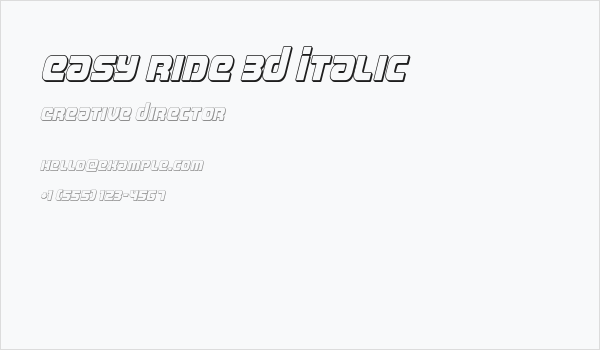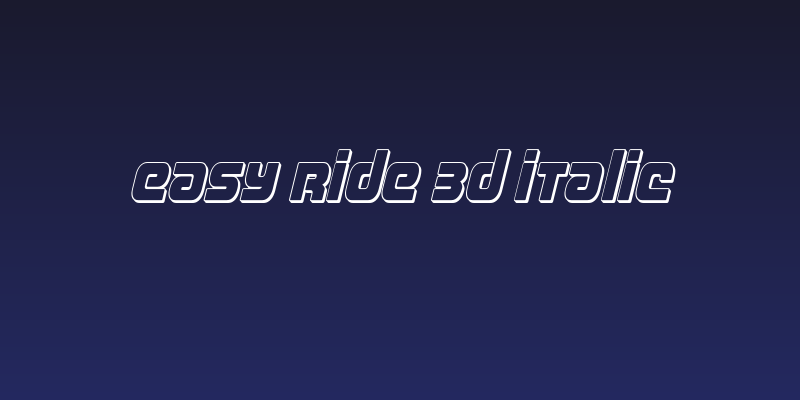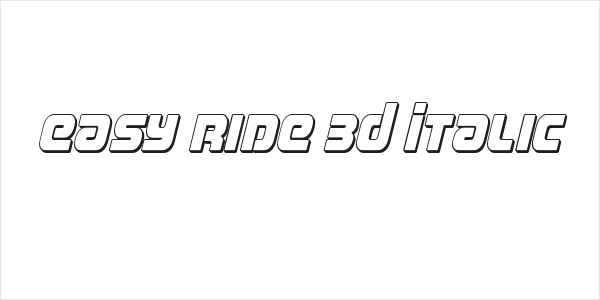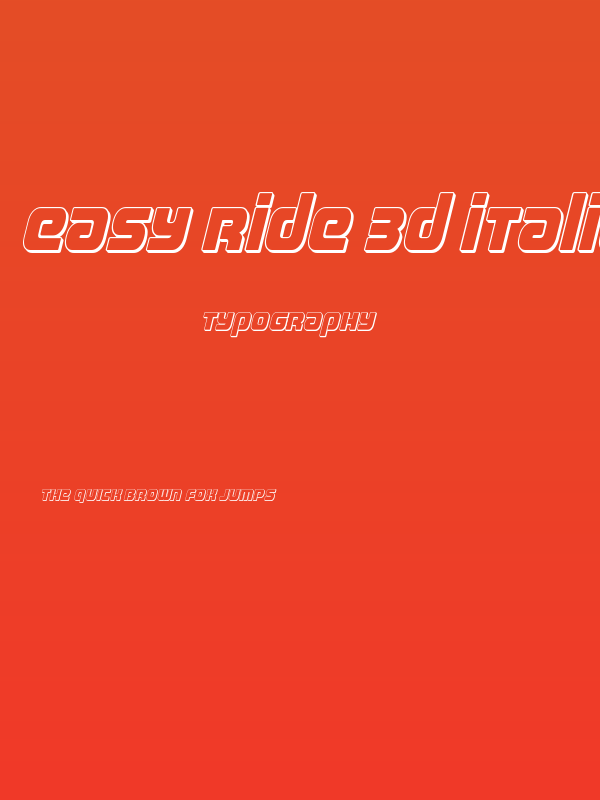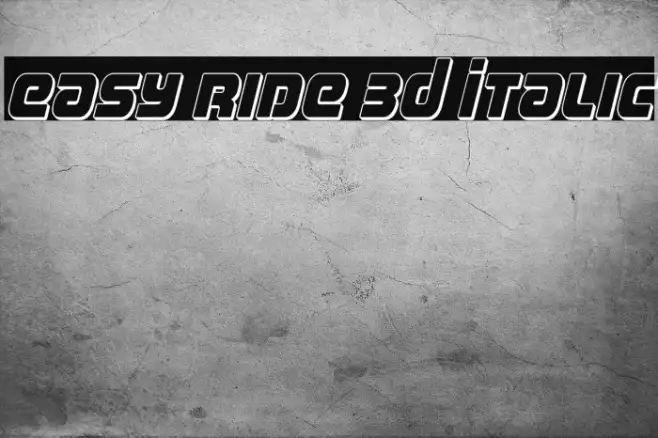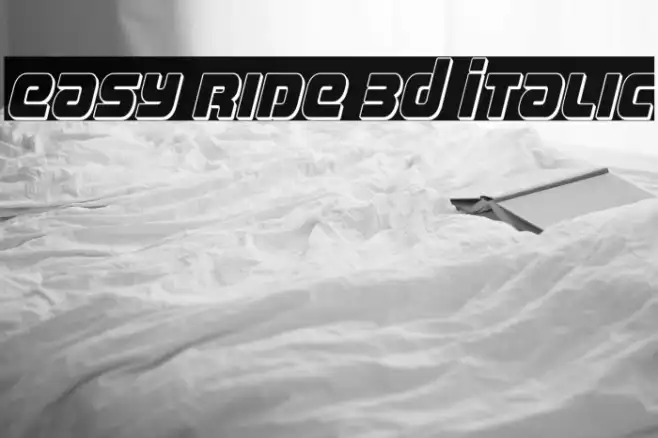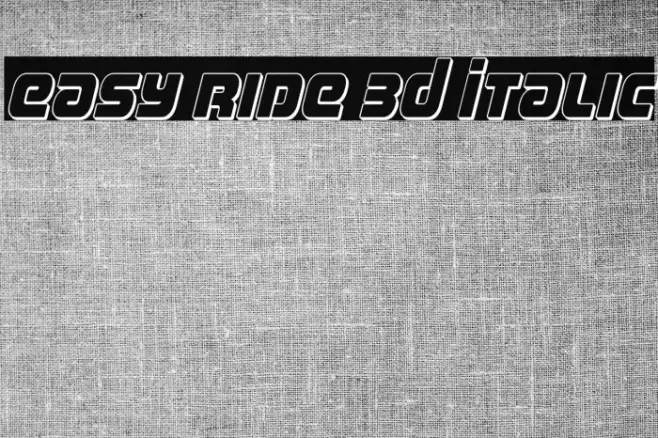
Easy Ride 3D Italic Font
Easy Ride 3D Italic Description
This font features a bold, three-dimensional design with an italic slant, giving it a dynamic and futuristic appearance. The characters are outlined, creating a hollow effect that adds depth and visual interest. The uppercase and lowercase letters maintain a consistent style, with rounded edges and a slight forward tilt, enhancing the sense of motion. The numerals and special characters follow the same design principles, ensuring uniformity across all glyphs. This font is ideal for projects that require a modern and energetic look, such as tech-related branding or sports-themed graphics.
| Proposed Projects | Ideal for tech branding, sports graphics, and dynamic posters. |